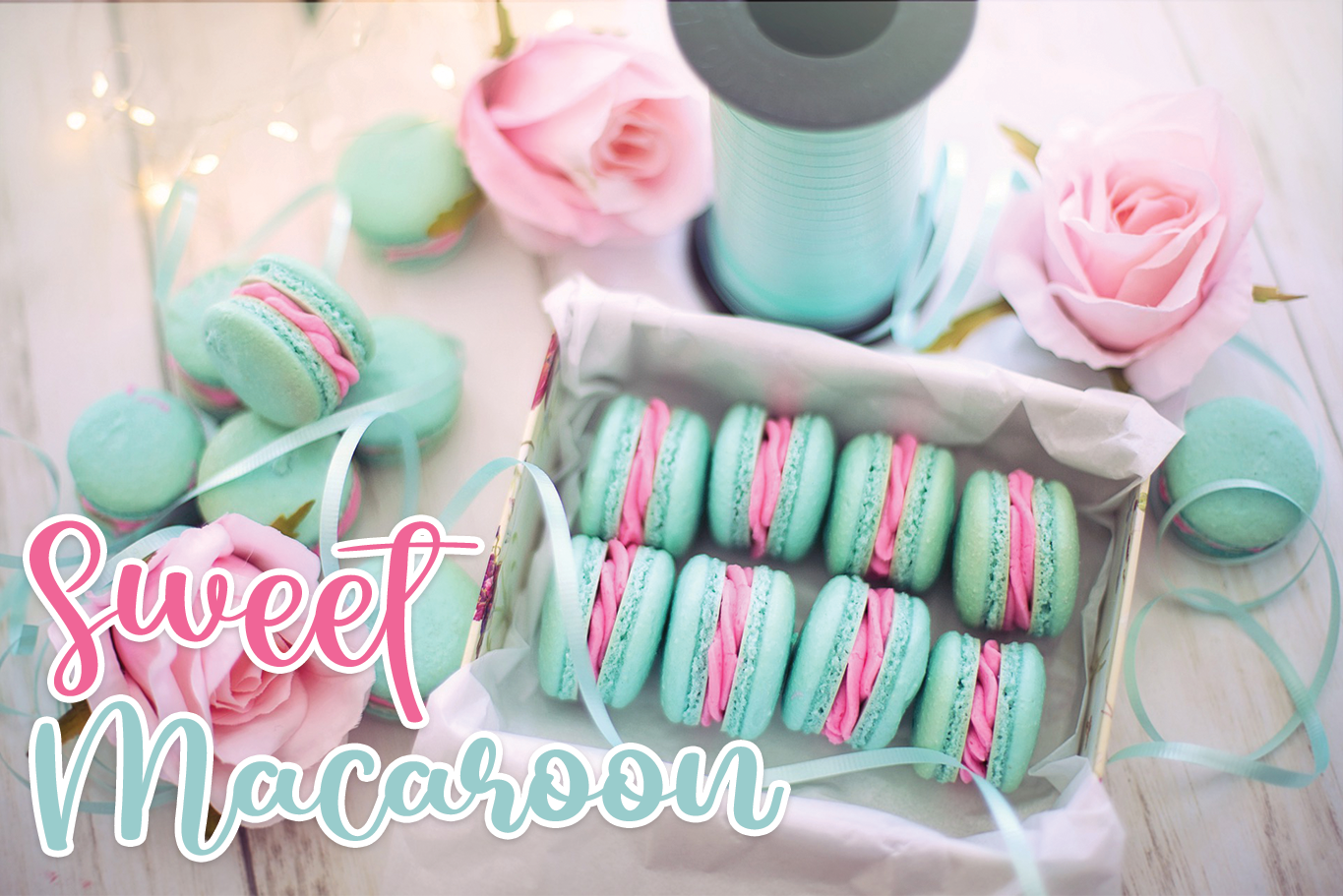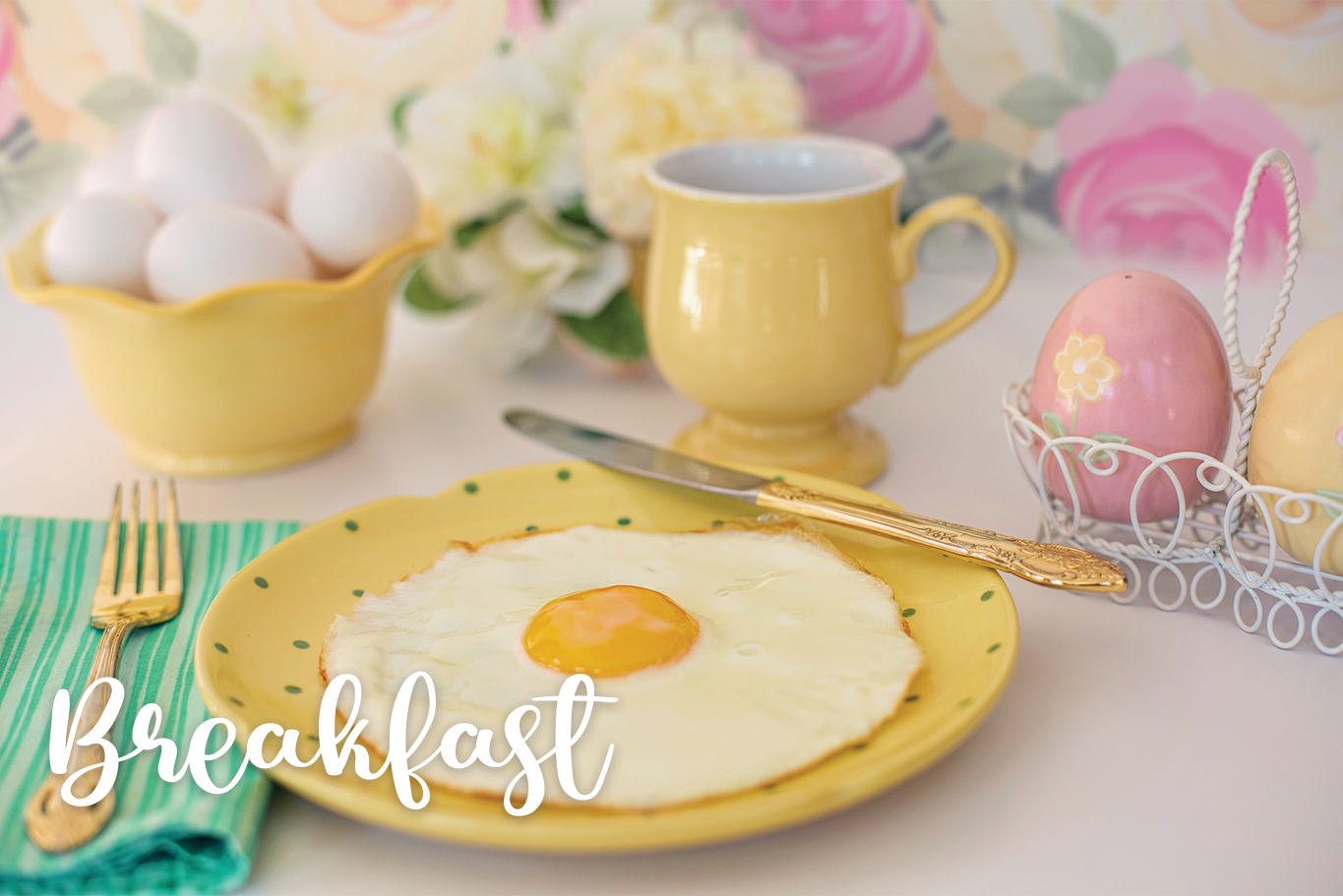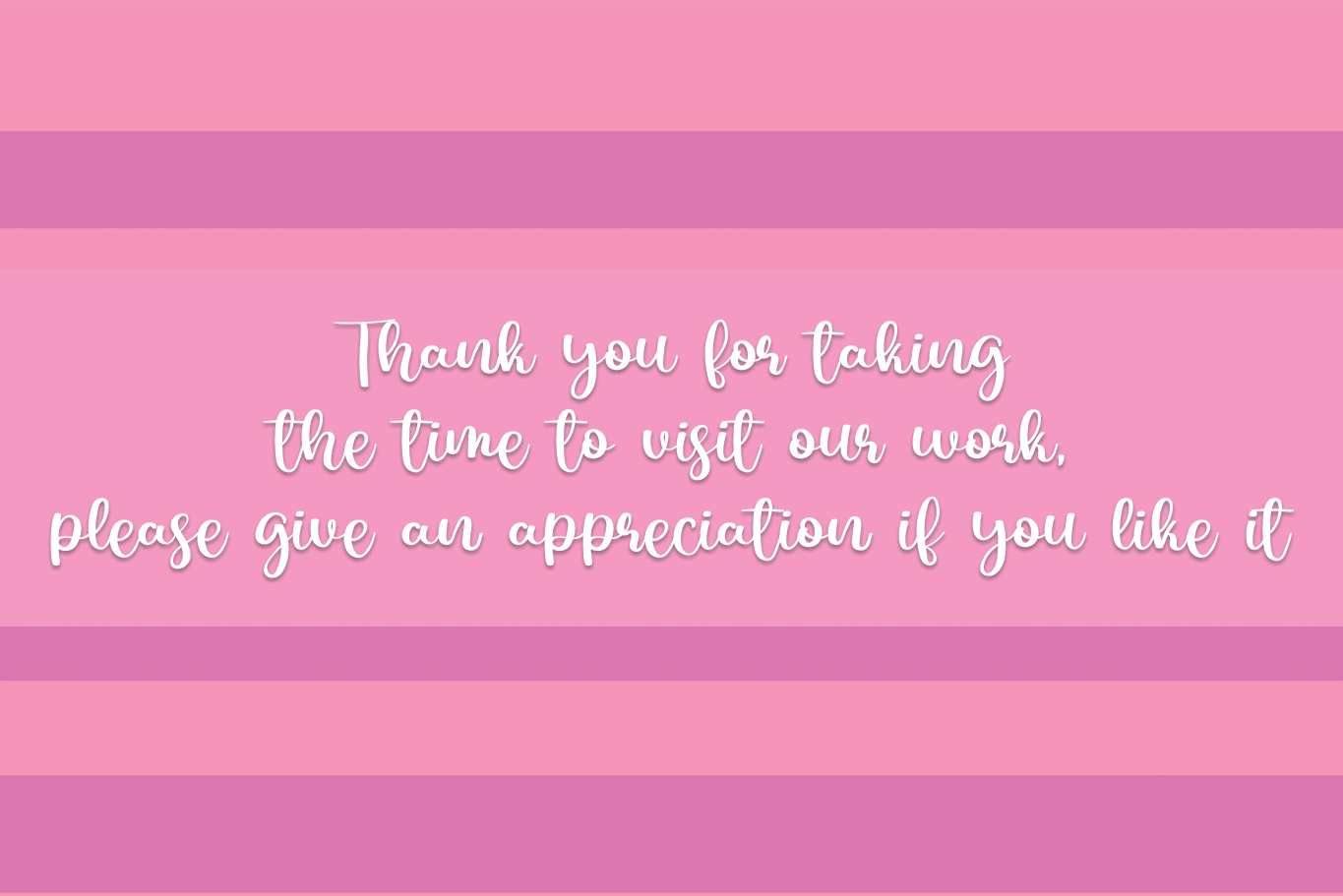
Cast Only Font
Cast Only Script Font
This is a fashionable script font. It is neatly crafted and highly detailed. Whatever the topic, Cast Only will be a wonderful asset to your font library, as it has the potential to enhance any creation.